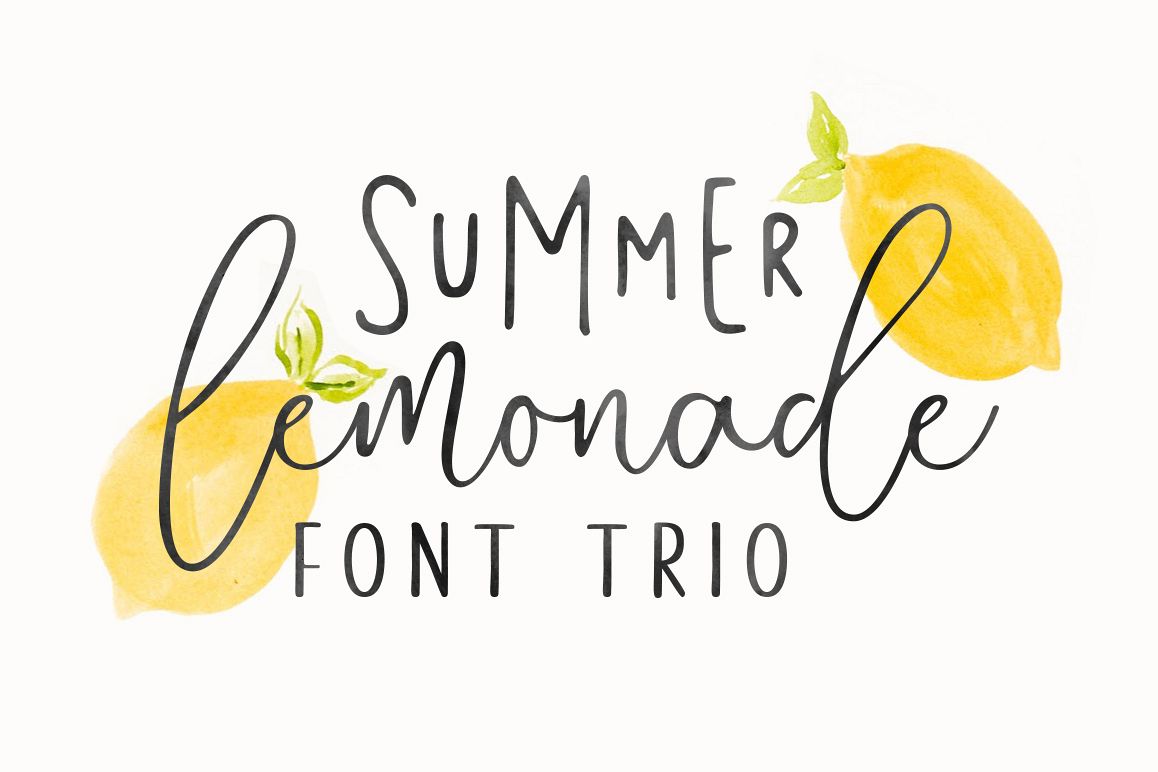
Summer Lemonade is a handwritten font trio, this font very easy to use and really playful. by combining three fonts, you can explore to create a combination that would have been nice.Your will receive 4 font files:
• Summer Lemonade Script • This font have two different style, uppercase acts as lowercase. so in this font have two lowercase and its terms can be combined as alternative.
• Summer Lemonade Doodles • These are the doodles we use in the display. So you can use it like an existing display. Please type A-Z to see all.
• Summer Lemonade Sans One • This fonts have uppercase and lowercase, and if you create a word, you can make like a bouncing effect. like the word "summer" in the main display.
• Summer Lemonade Sans Two • This font all caps only, so you can play around with all of these fonts and create something funny and awesome.
Very nice trio font. Any one of them are great alone and wonderful together.